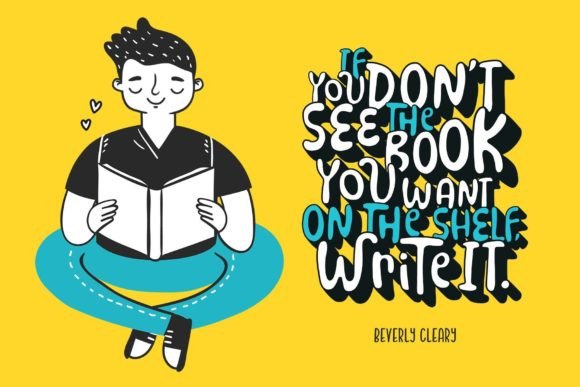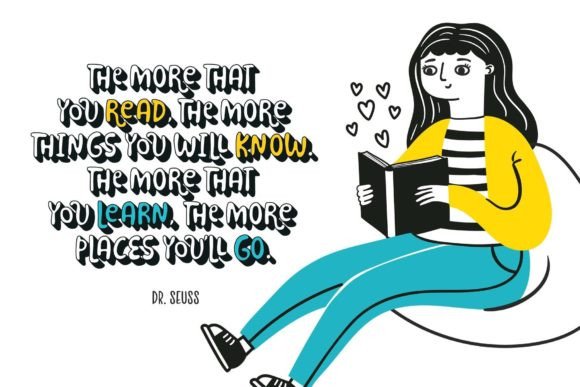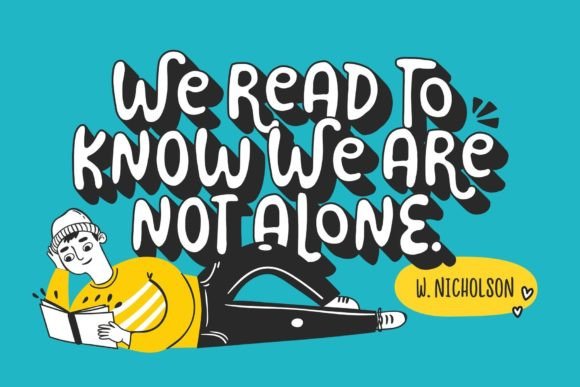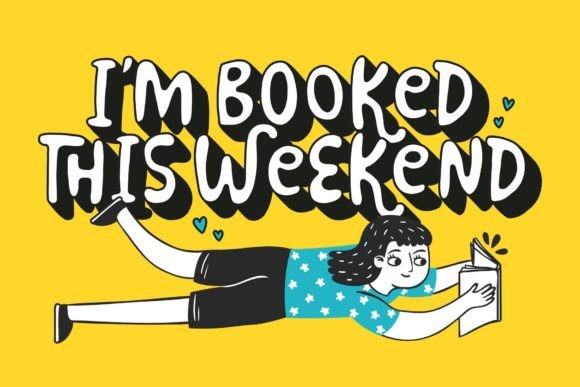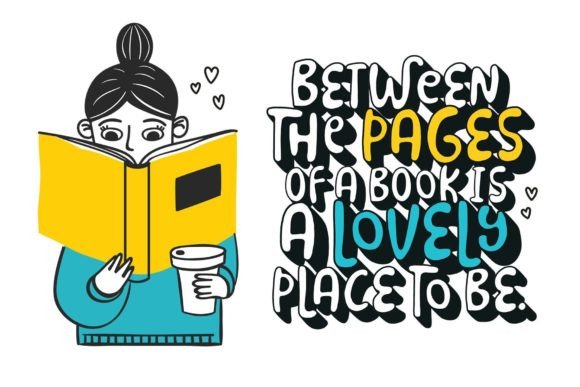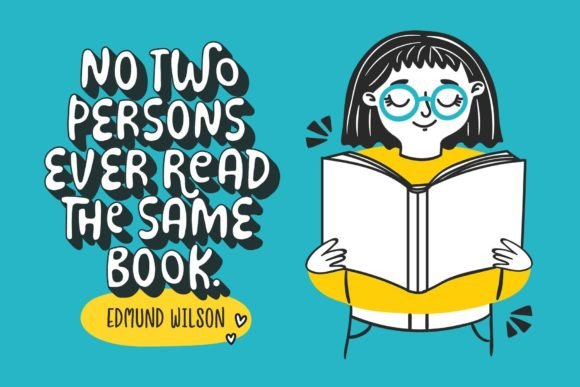
Introducing Chapter Three Font: A Bubbly Hand-Drawn Delight
Are you tired of using the same old fonts in your designs? Look no further! Chapter Three font is here to add a touch of fun and whimsy to your projects. This hand-drawn font features a solid drop shadow and a bunch of exciting ligatures that will take your designs to the next level.
What Makes Chapter Three Font So Special?
Chapter Three font is a one-of-a-kind, bubbly hand-drawn font that is sure to capture the attention of your audience. Its unique features include:
- Solid Drop Shadow: The font’s solid drop shadow gives it a distinctive look that sets it apart from other fonts.
- Fun Ligatures: The font comes with a range of fun ligatures that can be used to add a touch of personality to your designs.
- PUA Encoding: Chapter Three font is PUA encoded, making it easy to access all of the glyphs and swashes.
To get the most out of Chapter Three font, you’ll need to use the color SVG version. This will allow you to achieve a proper overlap look that showcases the font’s unique features. Here are some tips on how to use the font:
- OpenType-SVG: The font uses OpenType-SVG technology, which allows for advanced typographic features.
- Ligatures: Ligatures will appear automatically when using programs that support OpenType and have the feature turned on.
Chapter Three font is a favorite among designers and crafters for several reasons:
- Unique Look: The font’s bubbly hand-drawn style and solid drop shadow give it a distinctive look that stands out from other fonts.
- Versatile: Chapter Three font can be used in a range of projects, from digital designs to print materials.
- Experiment with Ligatures: Try out different ligatures to add a touch of personality to your designs.
- Play with Color: Use the color SVG version to experiment with different colors and achieve a unique look.
- Mix and Match: Combine Chapter Three font with other fonts to create a unique and eye-catching design.